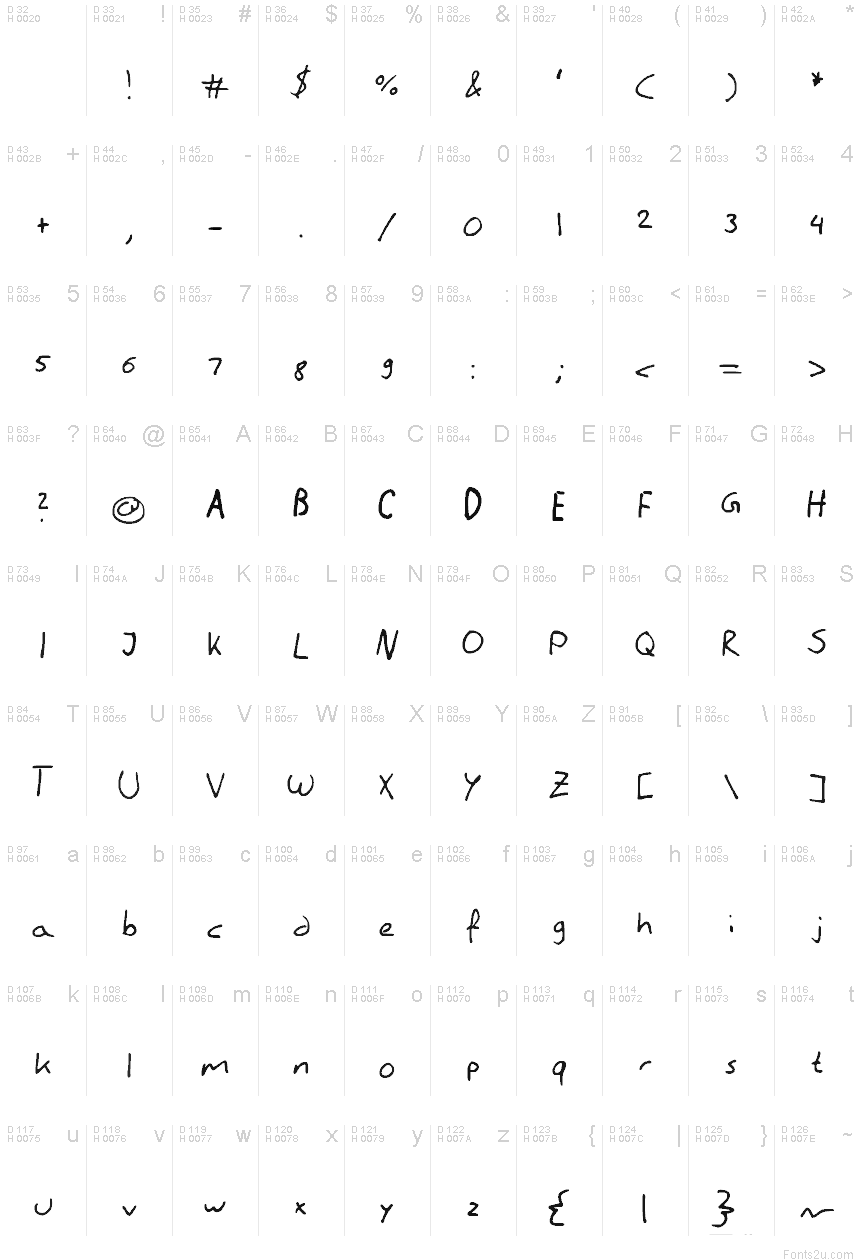
This font was created with Photoshop and my really real terrible handwriting ;). For similarites to other fonts, I apologize in the forehand.
Diese Schriftart wurde mit Photoshop und meiner wirklich echten total schlechten Handschrift erstellt. ;) Fr hnlichkeiten zu anderen Fonts bitte ich im Vorraus um Entschuldigung.
Literally Handwriting